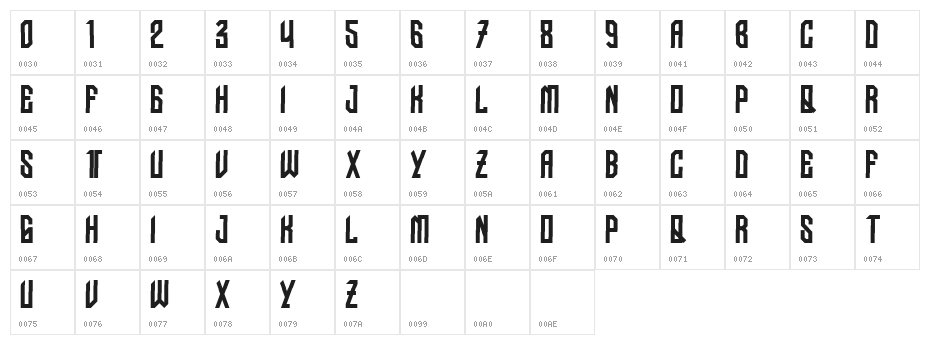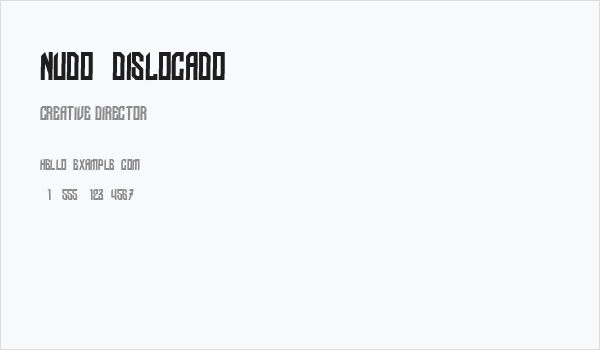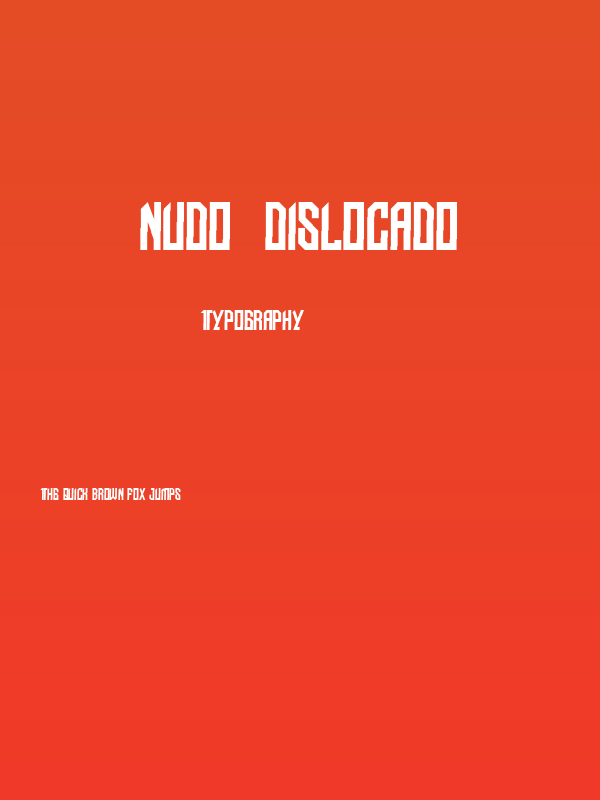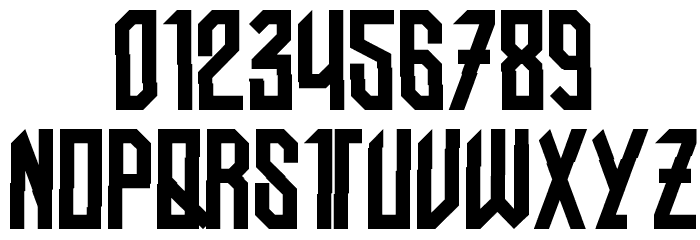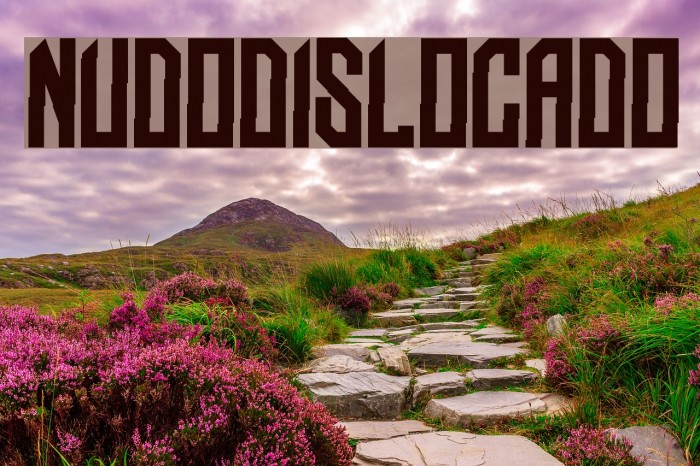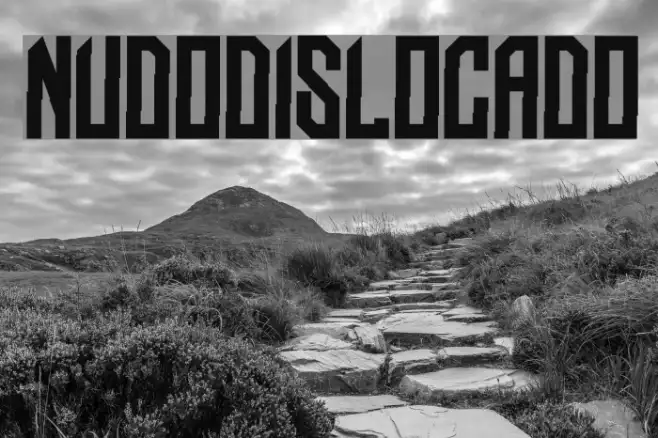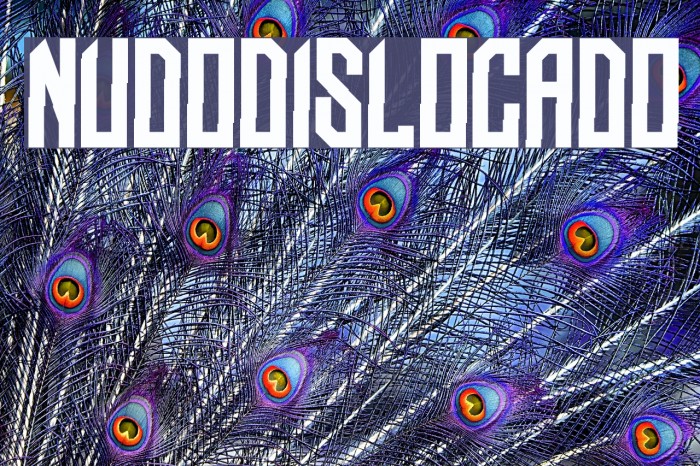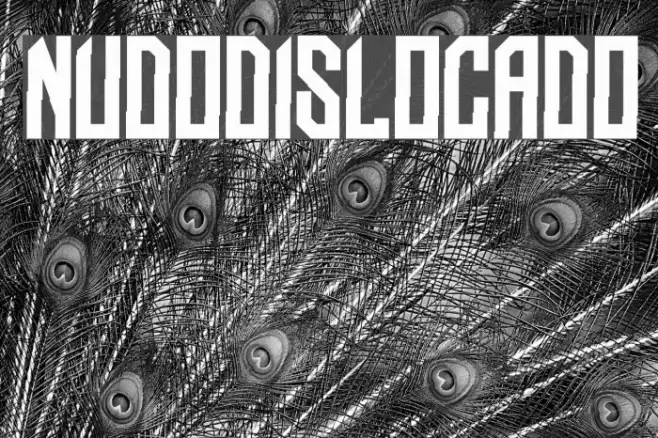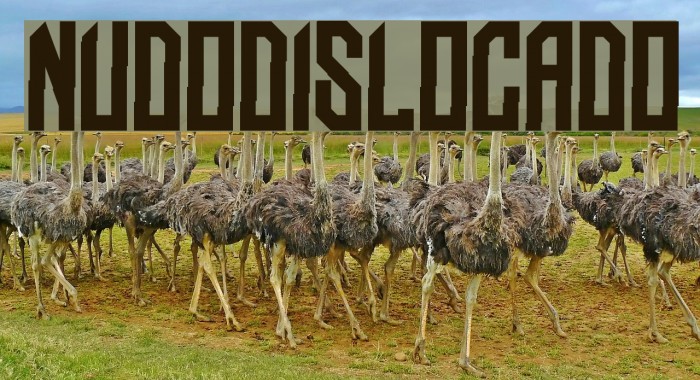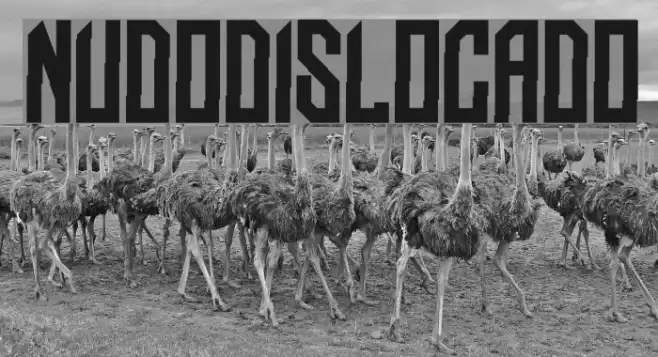
NUDO-Dislocado Font
NUDO-Dislocado Description
This font features a bold and geometric design with a distinct angular style. The characters are constructed with sharp edges and a block-like appearance, giving it a modern and industrial feel. The uppercase letters are uniform in height, while the numbers maintain the same boldness and angularity. The font's unique structure makes it stand out, with each character having a consistent width and height, contributing to a cohesive and striking visual impact.
| Proposed Projects | Ideal for branding, posters, and headlines that require a strong, modern aesthetic. |